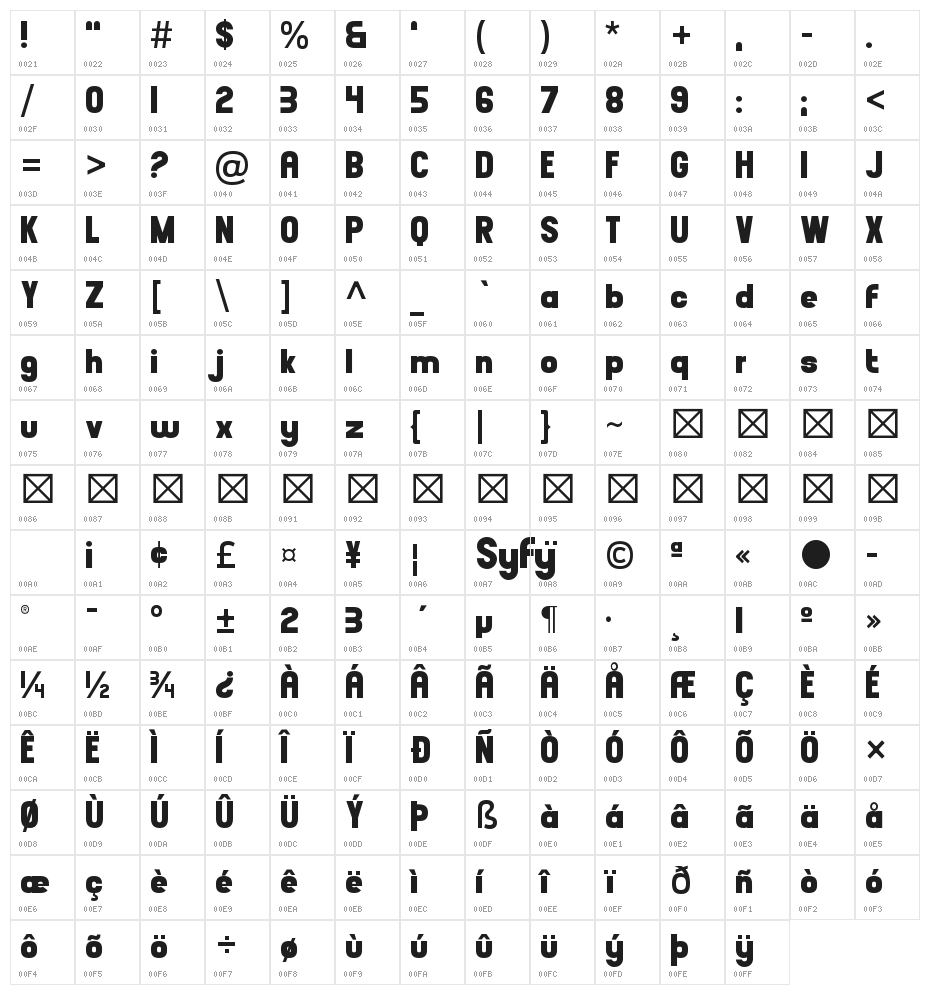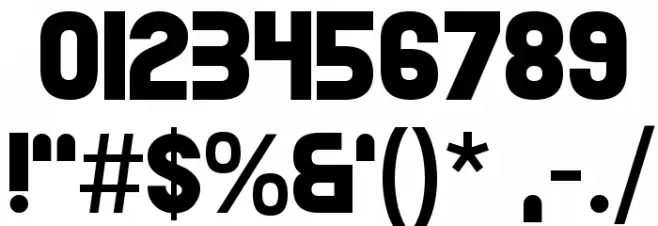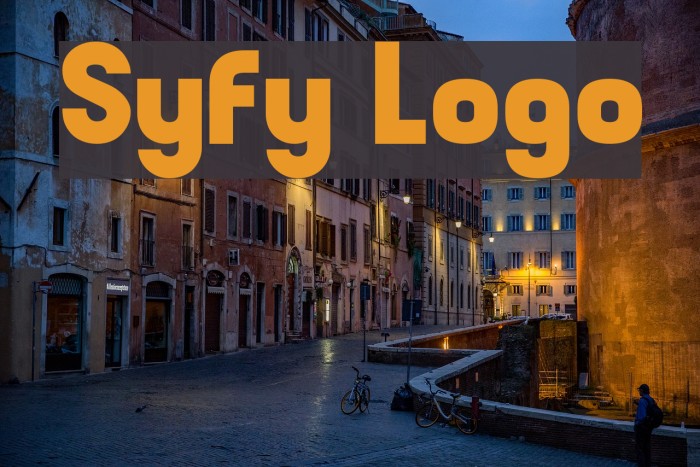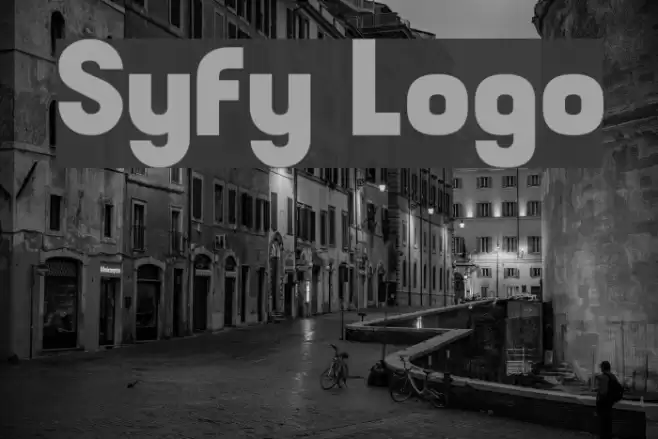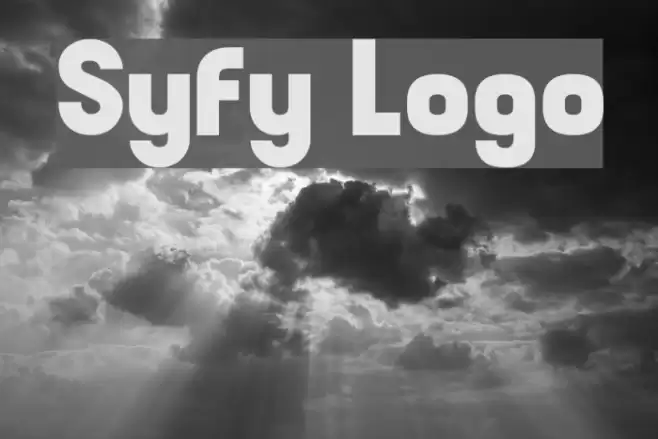
Syfy Logo Font
Syfy Logo Description
This font features bold, geometric letterforms with a modern and futuristic aesthetic. The uppercase letters are strong and impactful, while the lowercase letters maintain a consistent weight and style. The numerals are clear and legible, matching the overall boldness of the alphabet. Special characters are designed with the same attention to detail, ensuring a cohesive look across all glyphs. The font's thick strokes and minimal contrast make it ideal for high-impact designs where readability and presence are key.
| Proposed Projects | Ideal for branding, headlines, posters, and any design requiring a strong, modern presence. |